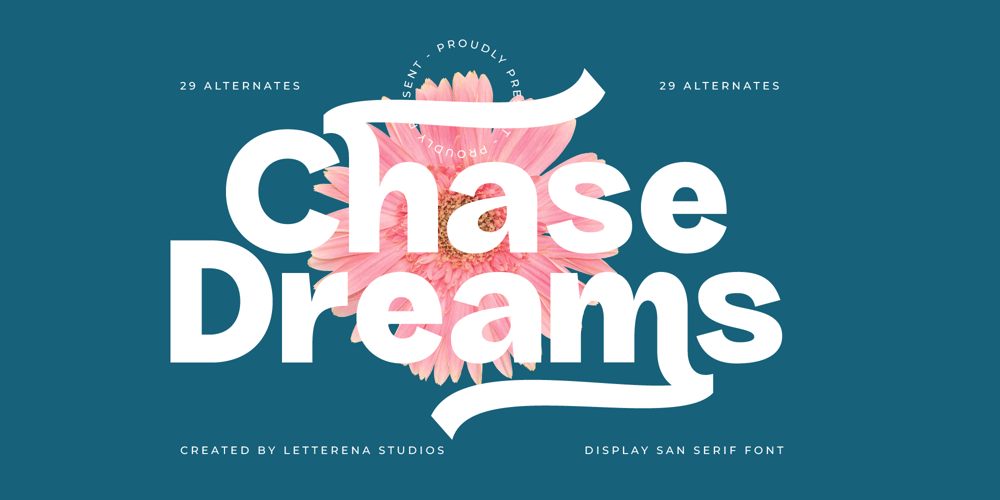
Chase Dreams Font Family was designed by Heru Utama Putra and published by Letterena Studios. Chase Dreams contains 2 styles and family package options. Chase Dreams is a clean and modern sans serif font with bold, easy-to-read letters. It’s perfect for making your text stand out with a stylish and straightforward look. Ideal for headlines, posters, and any design where you want a strong, clear message.